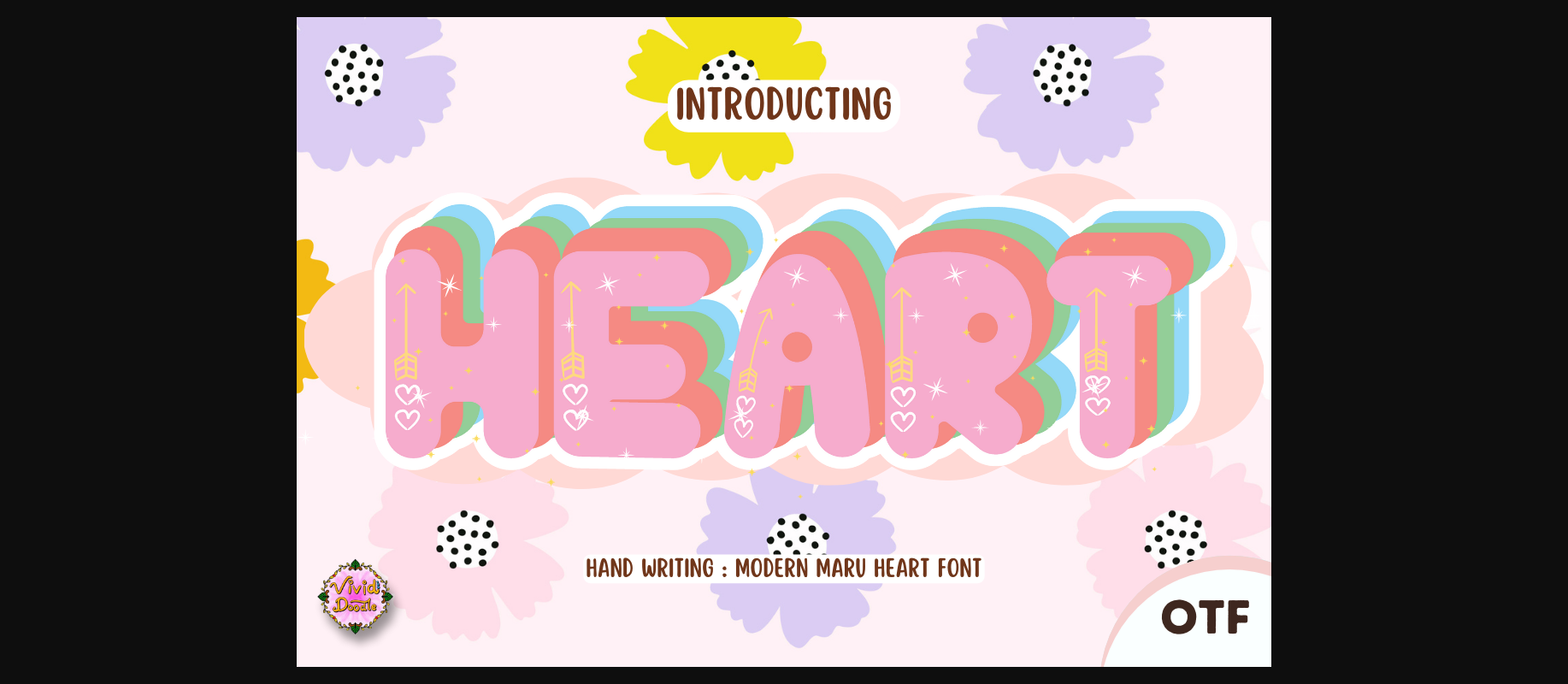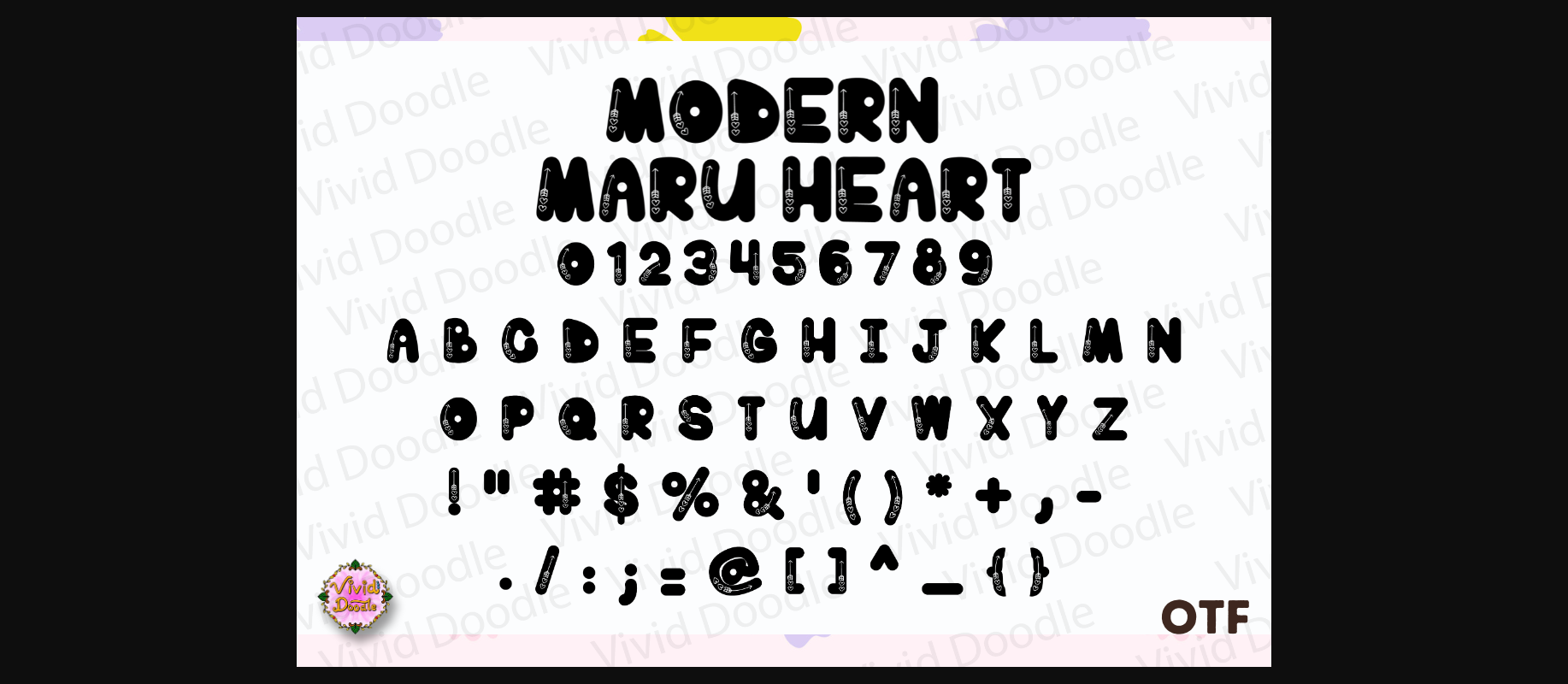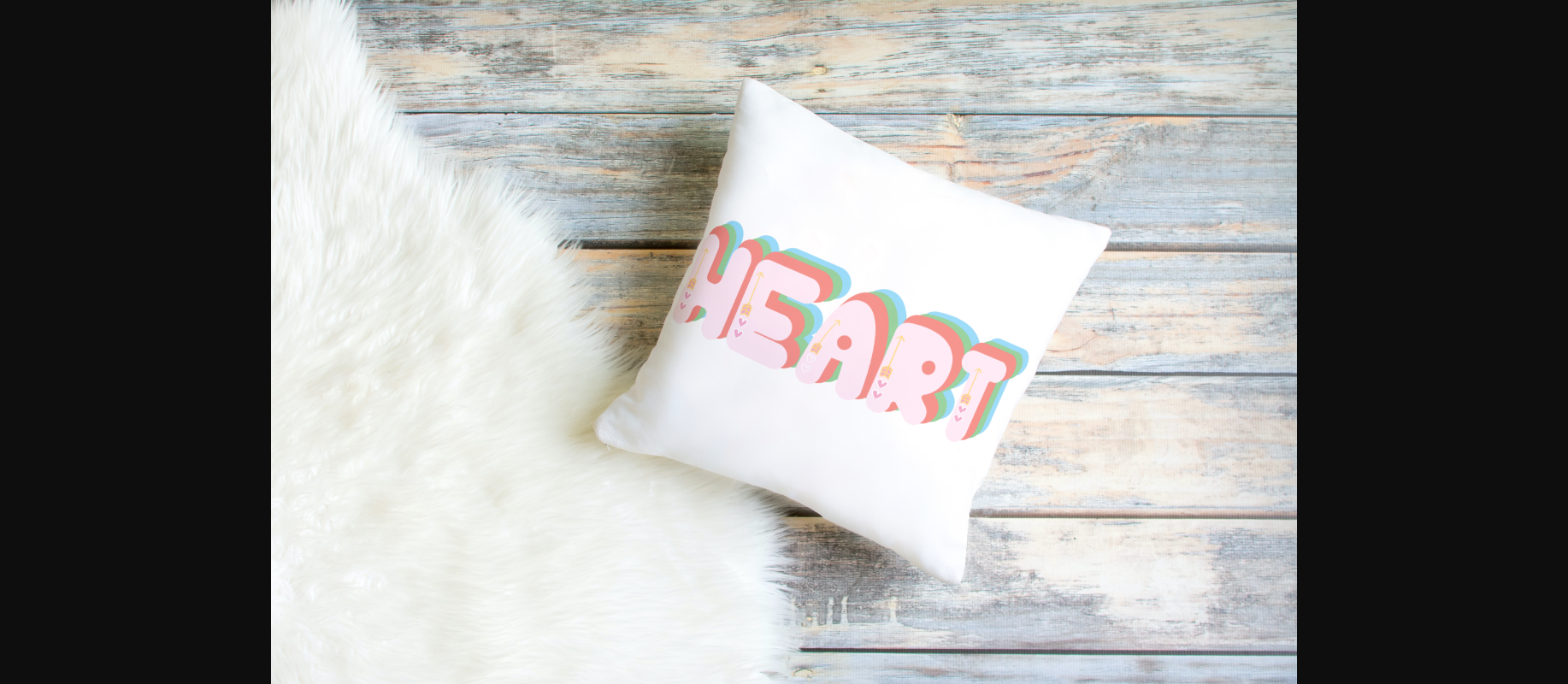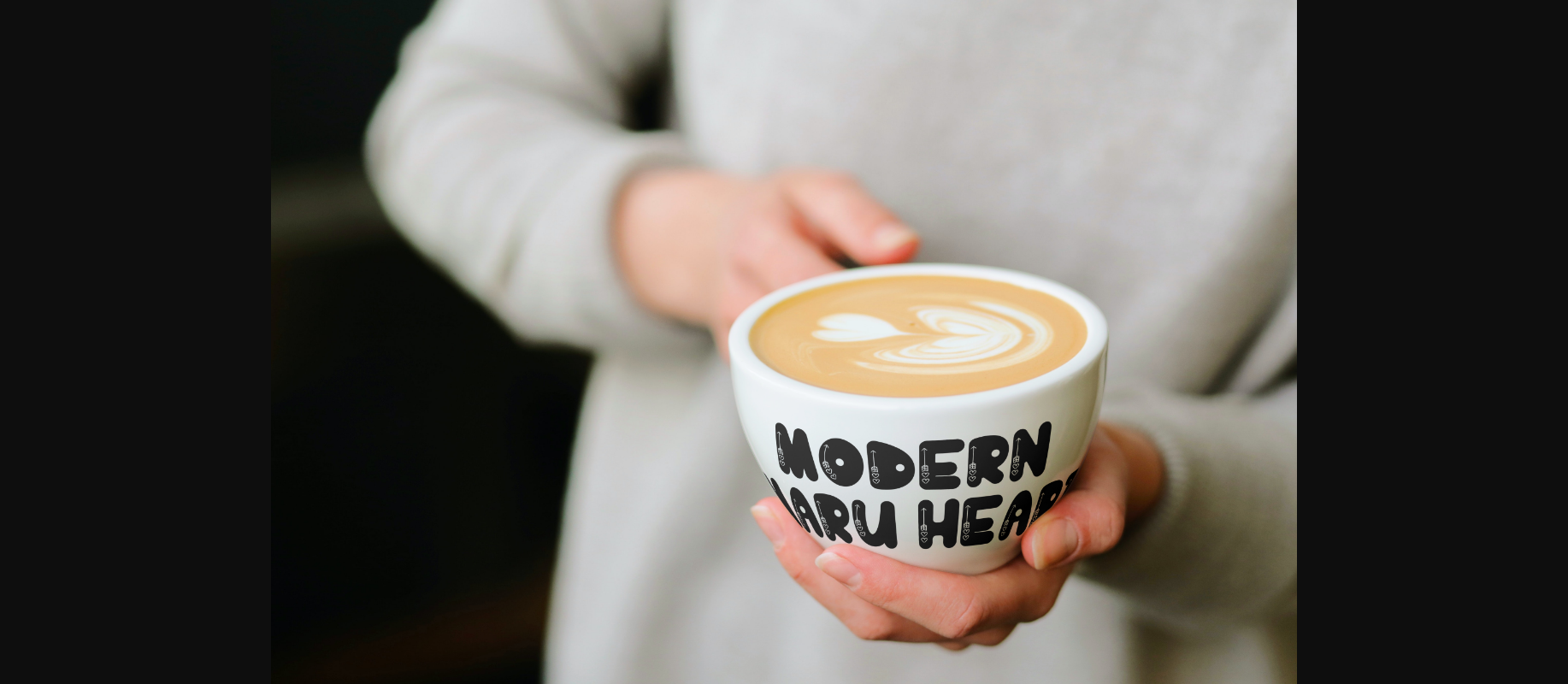
About Modern Maru Heart Font
Introducing Modern Maru Heart font—an expressive typeface where every letter and character is intricately designed to embody the essence of love, perfect for Valentine’s Day, heartfelt messages, and creative art projects. Each character features a contemporary take on the classic heart shape, bringing a modern and romantic touch to your designs. Whether it’s Valentine’s Day cards, love letters, holiday-themed projects, or any creative endeavor, this font seamlessly blends modern aesthetics with heartfelt charm. Elevate your artwork with the romantic allure of Modern Maru Heart font, inviting your audience to experience the passion and creativity embedded in every letter and character. Transform your designs into a celebration of love with this uniquely captivating and heart-inspired typeface!